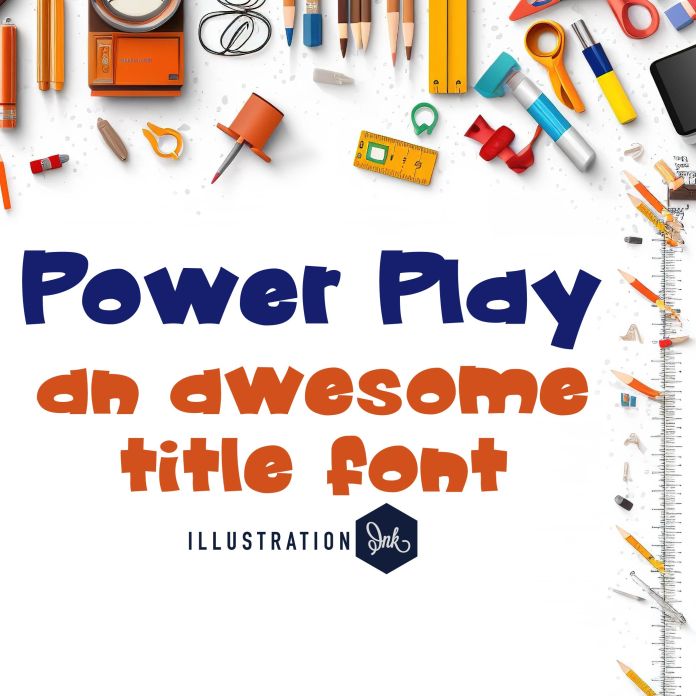
This hand-written font has three versions in this bundle. Regular, Condensed, Expanded, and highlighted. It is a fun font sans serif that is great for titles, displays, posters, and more. Some of the characteristics of handwritten fonts include: The letters are not perfectly uniform in size or shape. There may be slight variations in the spacing between letters and words. The font may have a "wiggly" or "squiggly" appearance. The font may be difficult to read at small sizes. Handwritten fonts can be a great way to add a casual touch to your designs. They can also be used to create a sense of nostalgia or whimsy. However, it is important to choose a handwritten font that is appropriate for the project you are working on. A formal handwritten font may not be appropriate for a casual invitation, while an informal handwritten font may not be appropriate for a corporate document.